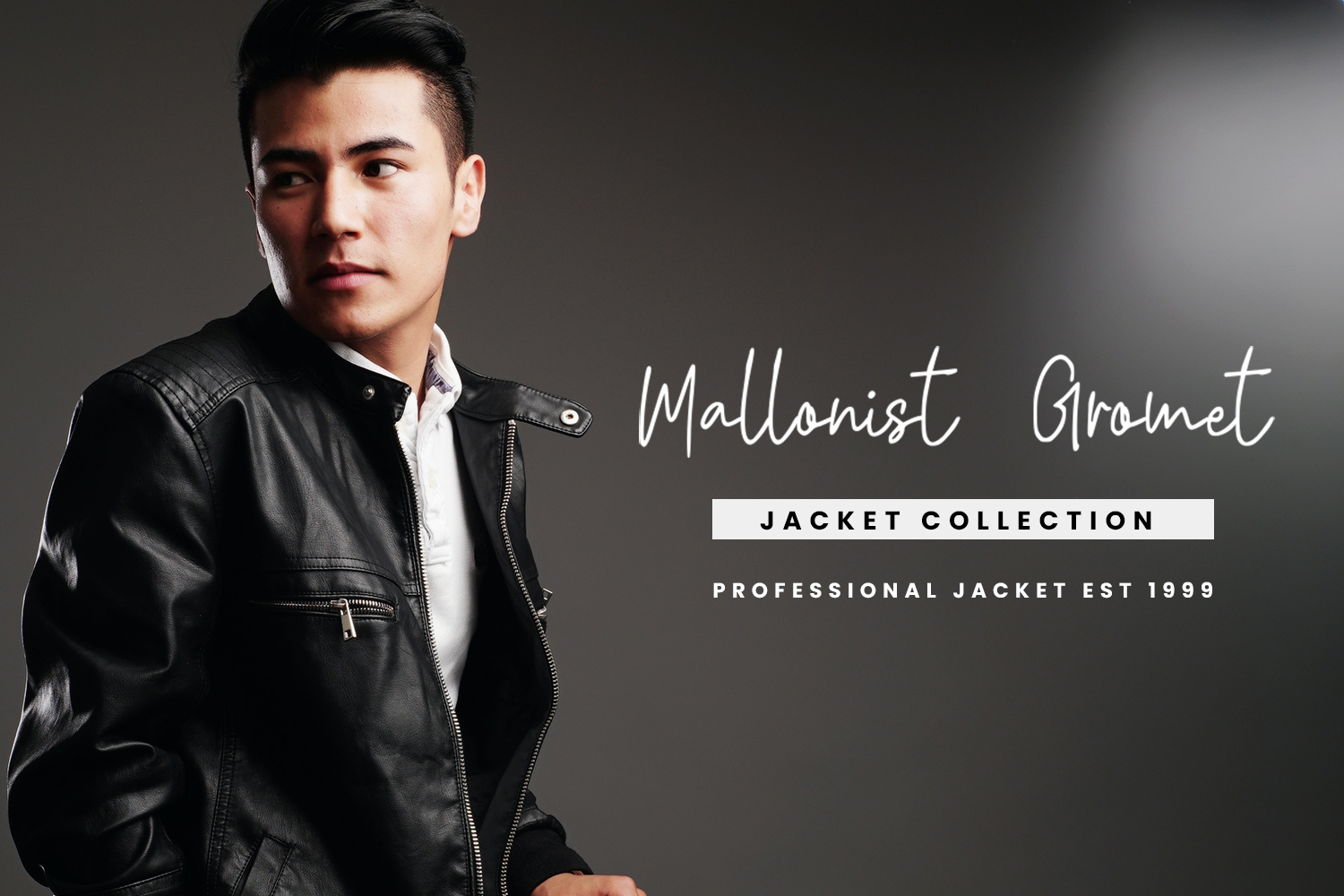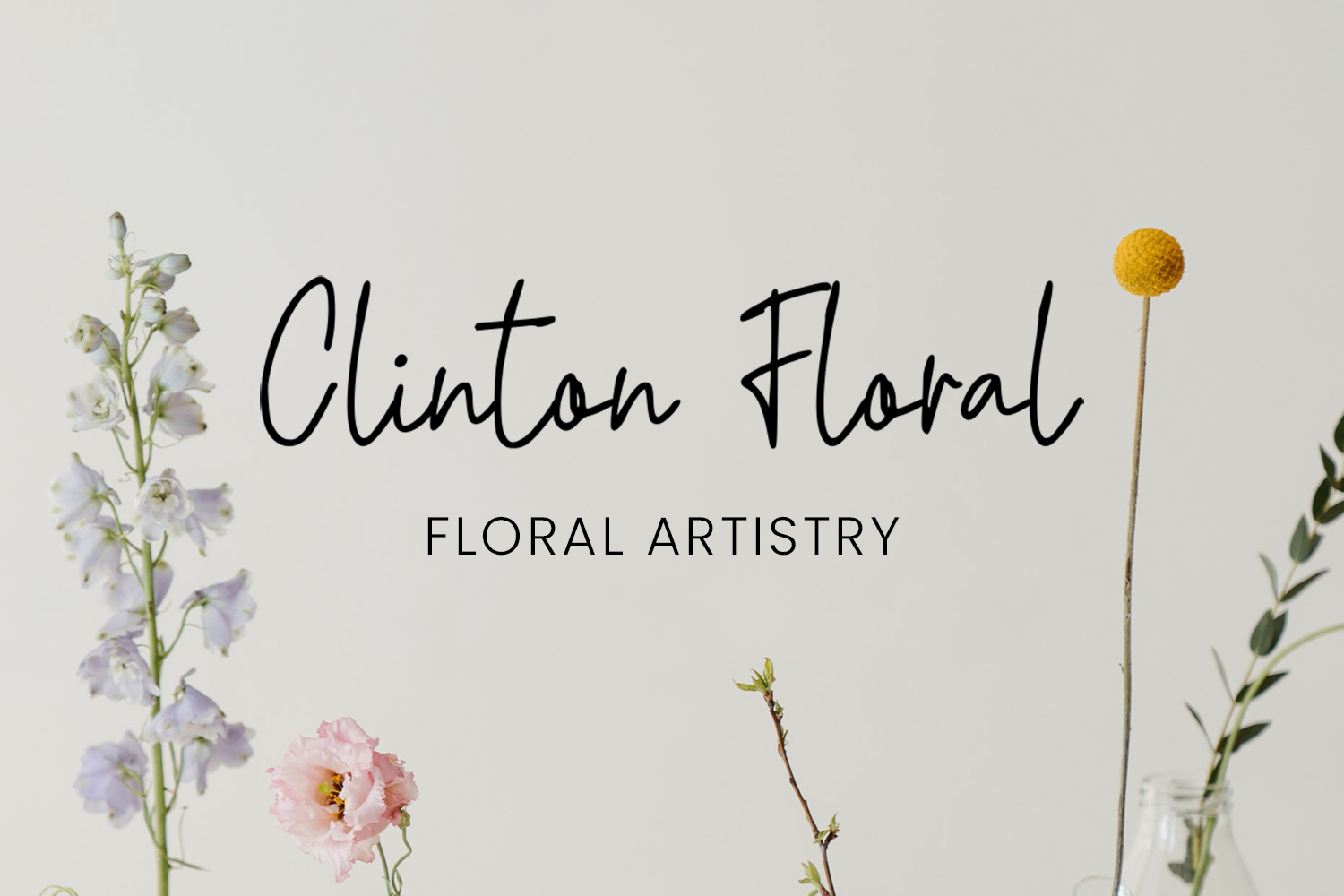
Add a touch of sophistication to your designs with Hailka Signature Style, a beautifully crafted font that captures the essence of modern elegance. With its smooth, flowing lines and refined strokes, this signature-style typeface is perfect for branding, high-end invitations, personal logos, and stylish stationery. Hailka’s effortless grace and unique flair will give your text a luxurious and personal feel, making it ideal for projects that demand both style and individuality. Download Hailka today and let your designs speak with timeless elegance!